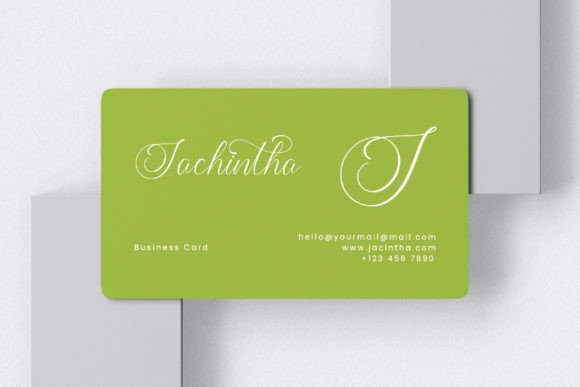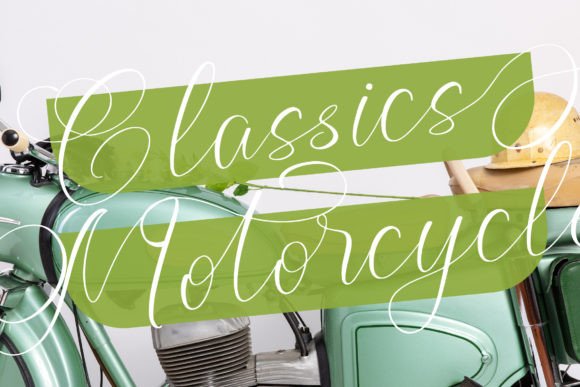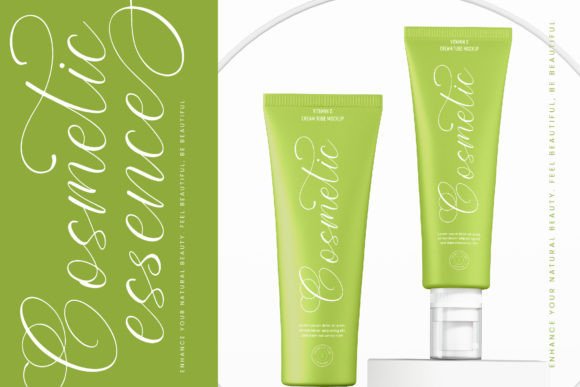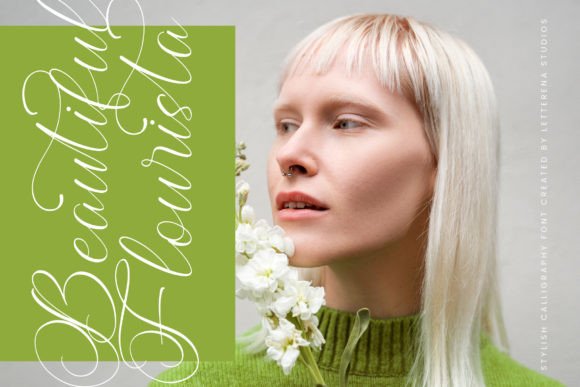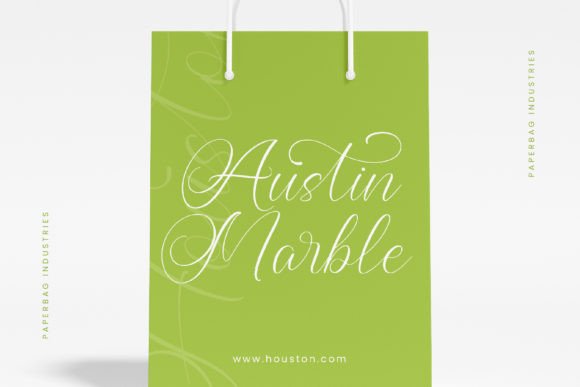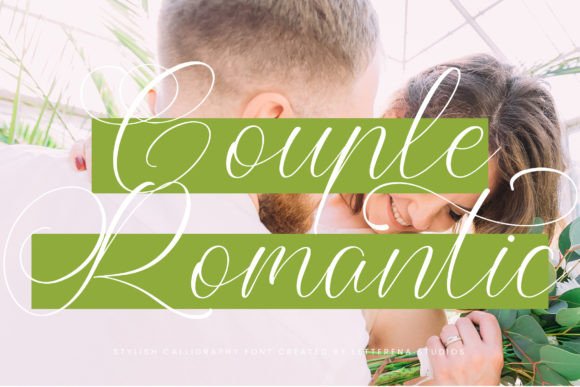
Introduction to Higland Amaranth Font
Higland Amaranth – Stylish Calligraphy Font , from Letterena, is a Luxury Script font, suitable for any projects such as: logos, branding projects, homeware designs, product packaging, mugs, quotes, posters, shopping bags, t-shirts, book covers, name card, invitation cards, greeting cards, label, photography, watermark, special events, and all your other luxury and beautiful projects that need a Luxury Script taste.
Higland Amaranth – Stylish Calligraphy Font , from Letterena, is a Luxury Script font, suitable for any projects such as: logos, branding projects, homeware designs, product packaging, mugs, quotes, p
Key Features of Higland Amaranth Font
Why Choose Higland Amaranth Font?
Higland Amaranth Font offers exceptional quality and versatility, making it a valuable addition to your design toolkit. Whether you’re creating for personal projects or commercial use, Higland Amaranth Font delivers professional results.